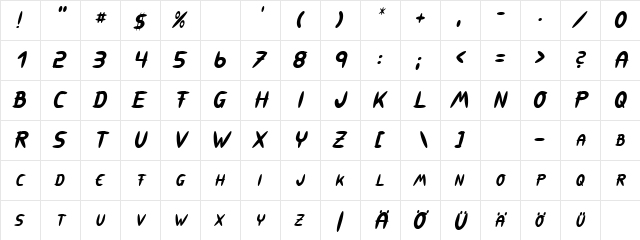
309 Italic Font Preview
309 Italic
Design Context for 309 Typeface
309 is a composed and adaptable typeface that performs quietly and consistently across a wide range of design contexts. The slanted form adds forward momentum and visual energy.
Pro Tip: Use 309 for emphasis, pull quotes, and subheadings where its slanted energy can add rhythm to the layout.